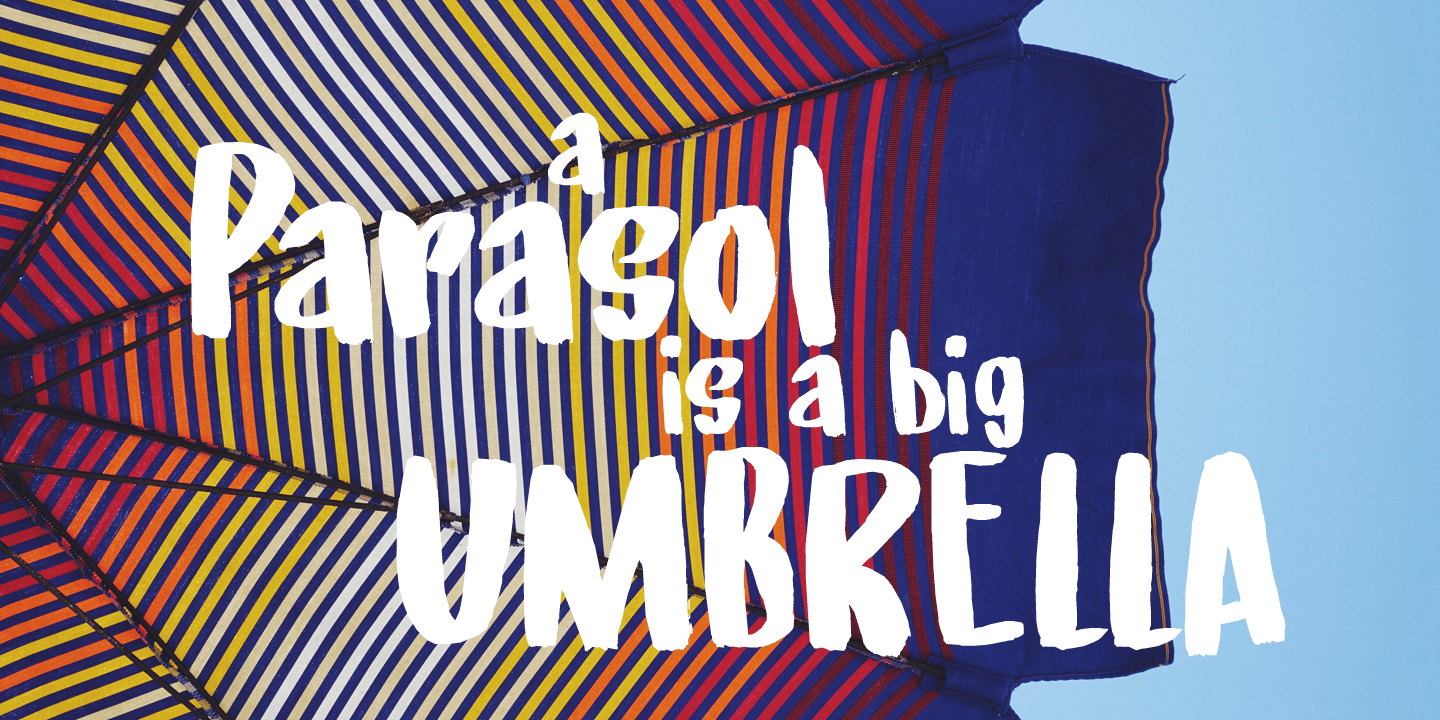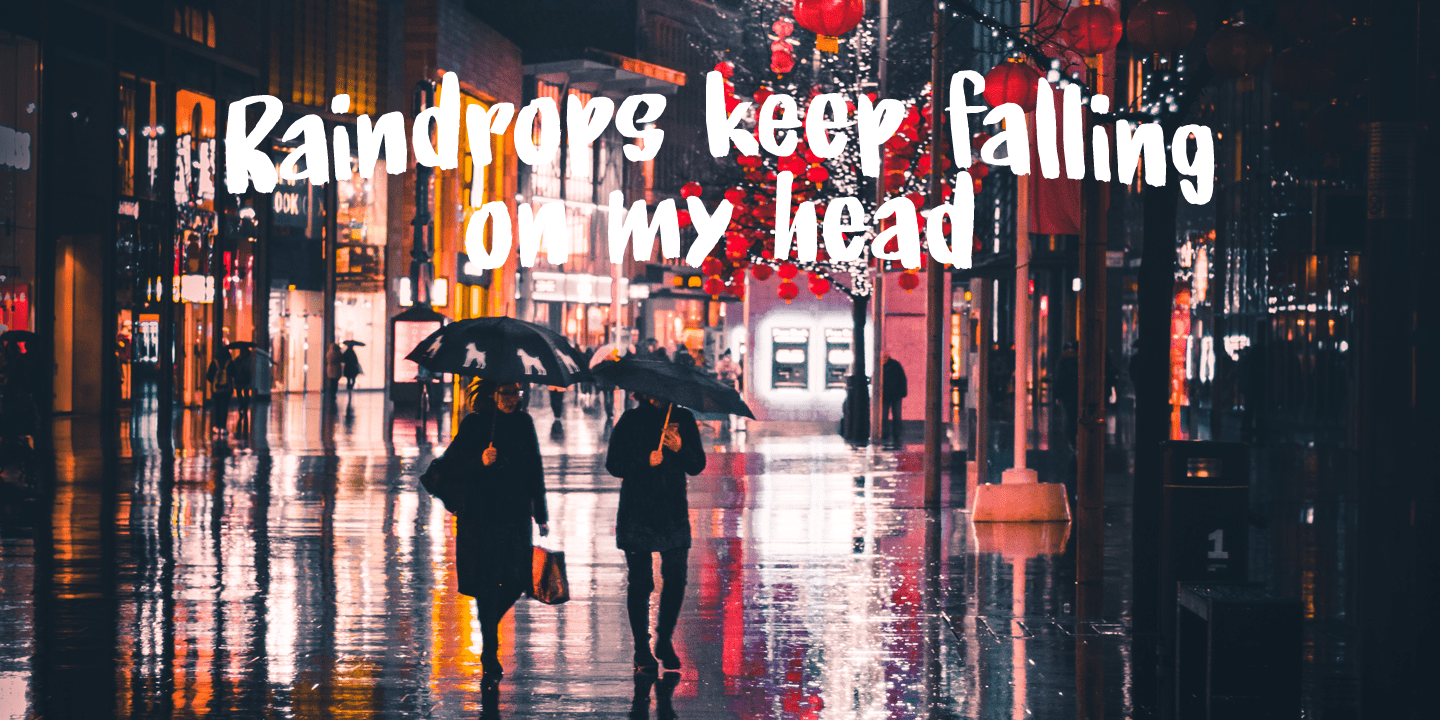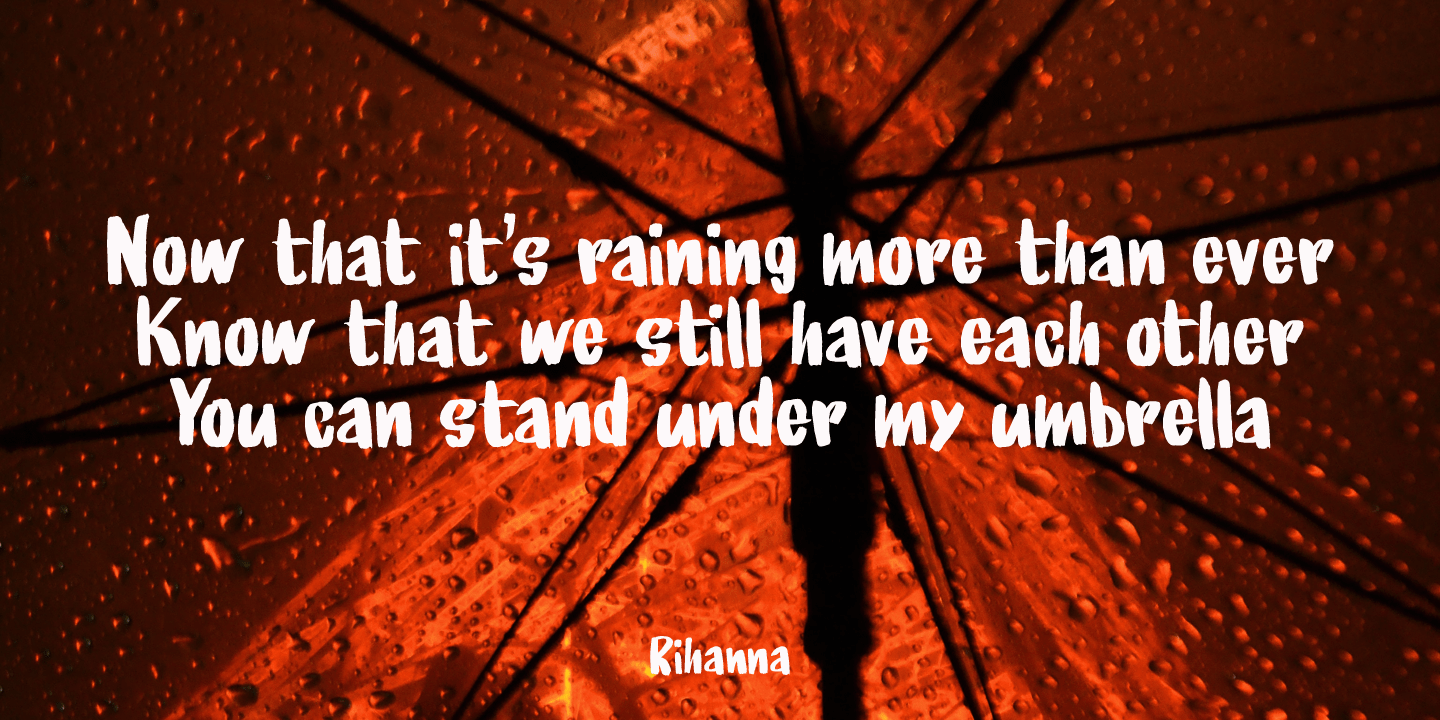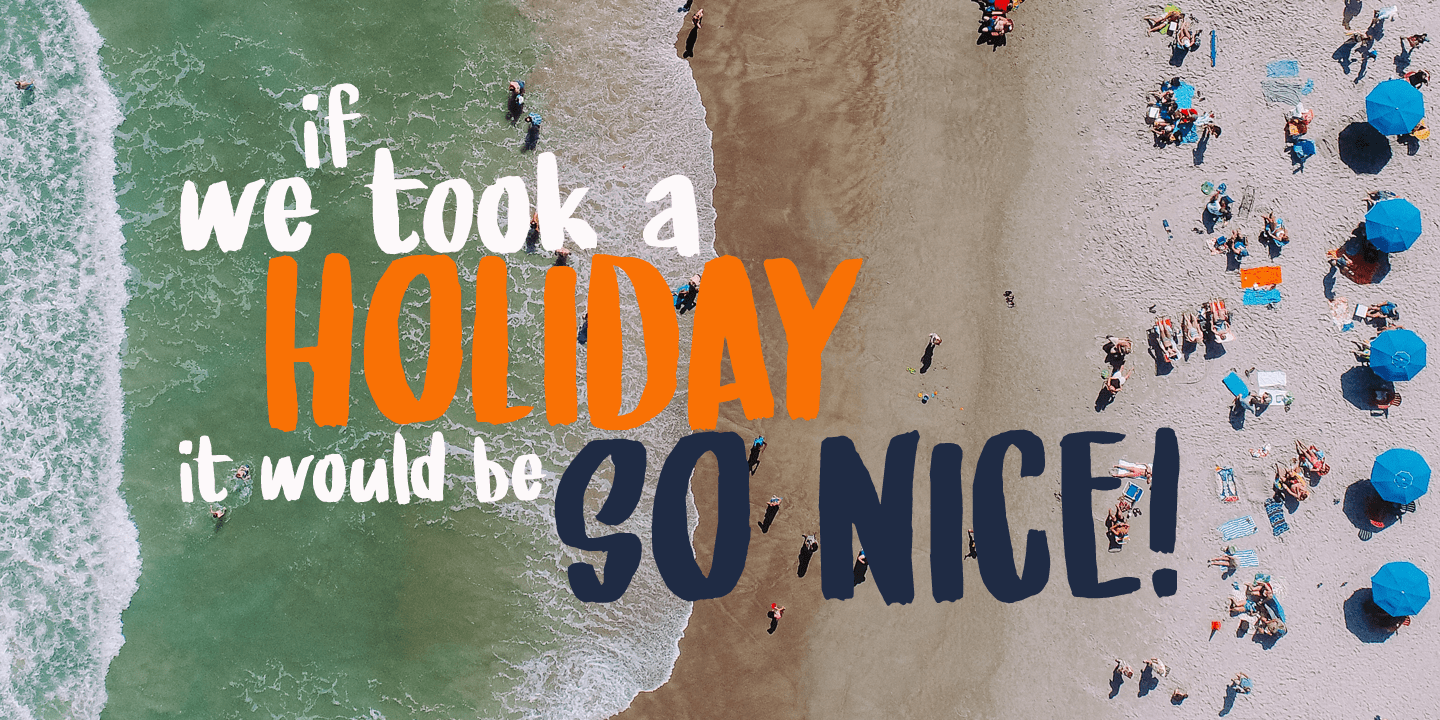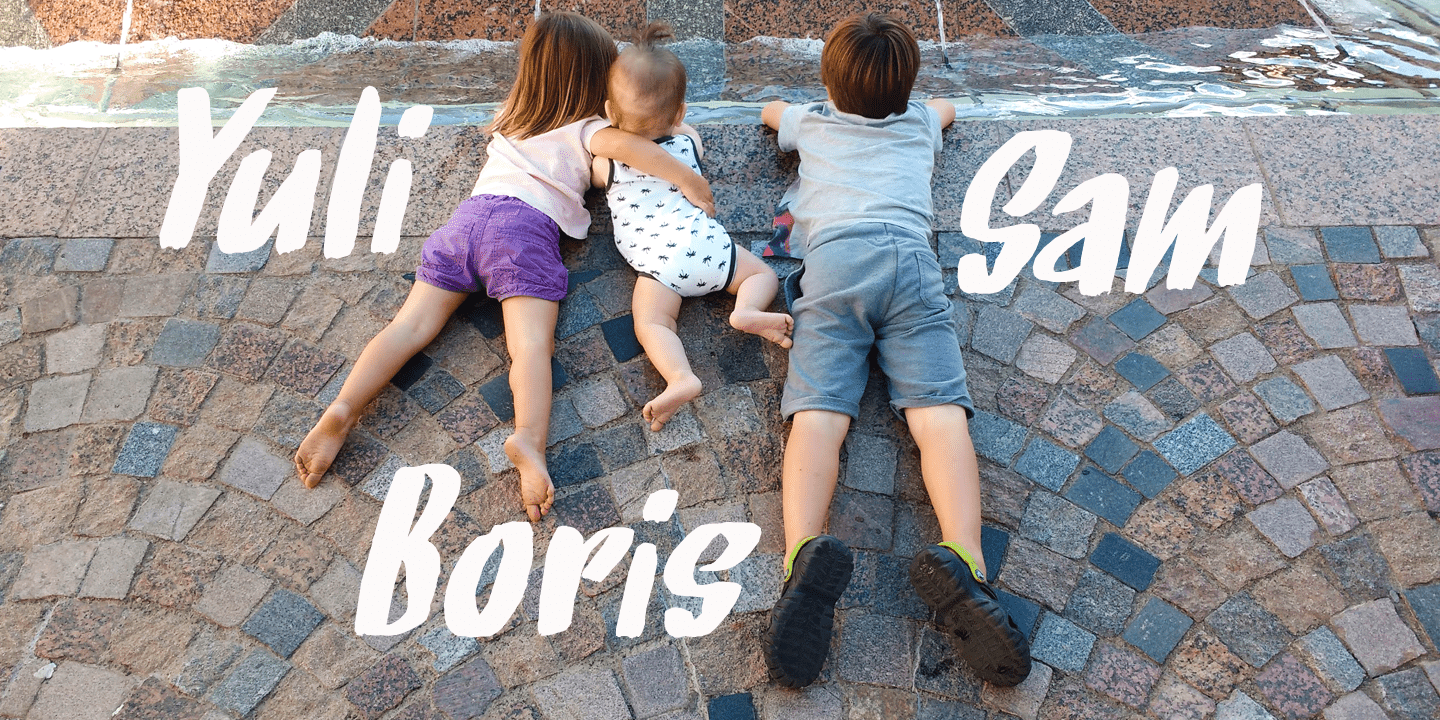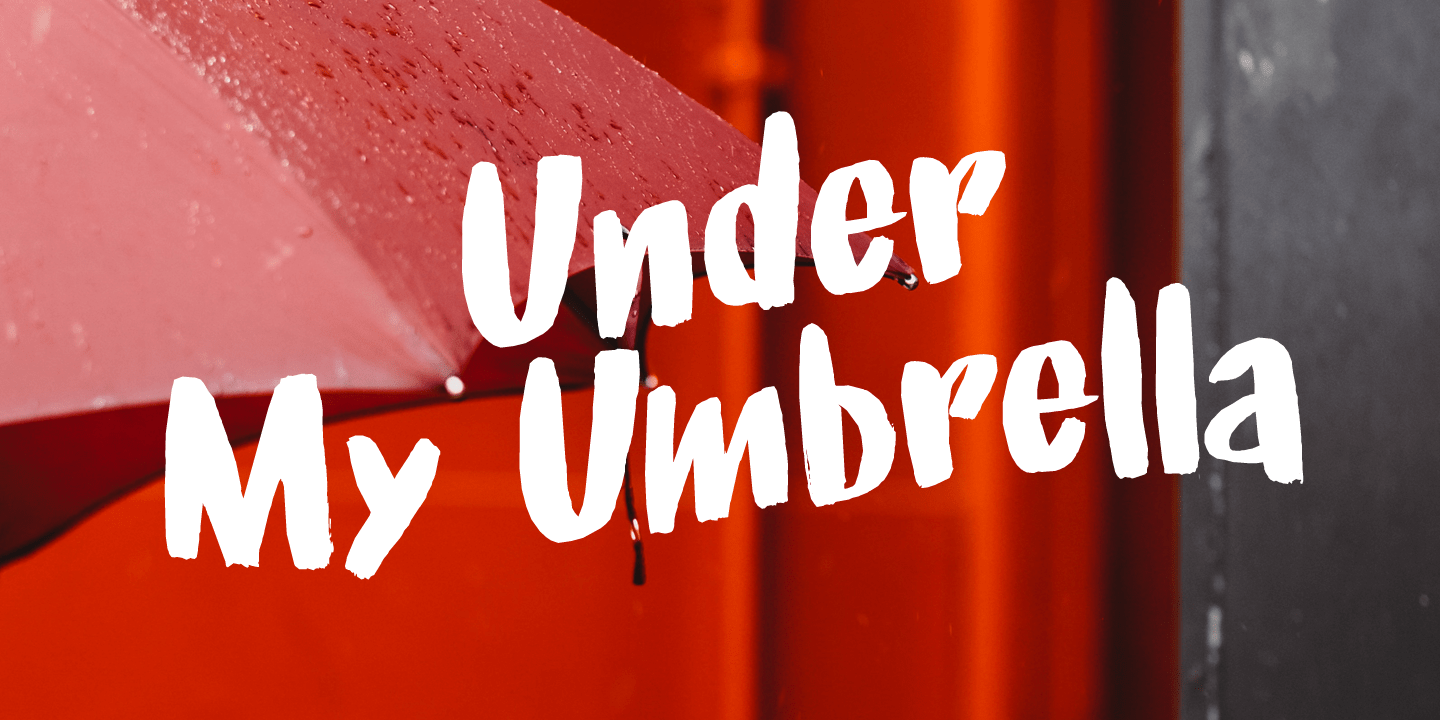
Under My Umbrella
Under My Umbrella is a hand painted font. I made it with a brush I bought in China, using Chinese ink. This cute little font comes with double letter ligatures and a whole bunch of diacritics as well!